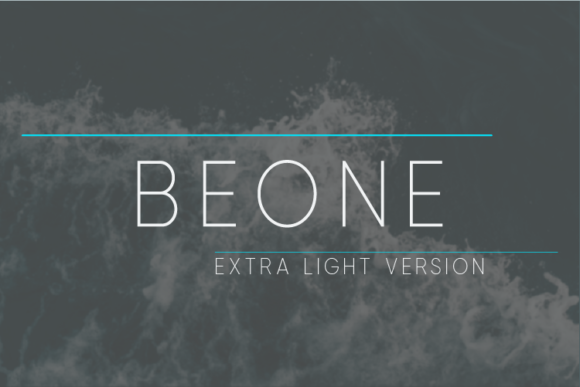
I still remember the frustration of working on a project, hours spent on perfecting every detail, only to be held back by one thing: the font. I was designing a brand identity for a new eco-friendly cosmetics company, and I just couldn’t find the right fit. The client wanted something modern, clean, and elegant, but also earthy and natural. I tried font after font, but nothing seemed to capture that perfect balance. That was until I stumbled upon Beone Extra Light.
Introducing Beone Extra Light
Say hello to Beone Extra Light – a modern sans serif font inspired by trendy minimal branding, natural cosmetic packaging design, and all kinds of creamy neutral shades. This font is a game-changer for designers, crafters, and creative hobbyists looking to give their projects a professional and sleek look.
Here’s what I love about Beone Extra Light:
- ✨ Clean and modern design: The font has a fresh and contemporary feel that’s perfect for modern branding and design projects.
- ✅ Highly legible: Even at small sizes, Beone Extra Light remains clear and easy to read.
- 💡 Versatile: This font works beautifully for both digital and print projects, from social media graphics to business cards and brochures.
And, like any font, it’s not without its quirks:
- 🤔 Limited contrast: While the font is designed to be elegant and understated, it may not be the best choice for projects requiring a lot of visual hierarchy.
- ⚠️ Not ideal for body text: Beone Extra Light is best used for headlines, titles, and short paragraphs; it may be too light for longer blocks of text.
Beone Extra Light comes with a range of OpenType features and glyphs that can enhance your designs. Look for:
- Stylistic alternates: Swappable characters that offer alternative designs.
- Ligatures: Combined characters that create a more fluid look.
- Glyphs: Additional characters and symbols that can add variety to your text.
The Story Behind Beone Extra Light
Beone Extra Light was designed with the modern brand in mind. Inspired by the clean lines and minimal aesthetic of trendy cosmetic packaging, this font is perfect for designers looking to create a natural and elegant look. Whether you’re working on a branding project, packaging design, or marketing materials, Beone Extra Light is a versatile choice that will elevate your designs.
| Font Name | Beone Extra Light Font |
| Author | Nan Design |
| What is Beone Extra Light? | Beone Extra Light is a modern sans serif font inspired by trendy minimal branding and natural cosmetic packaging design. |
| Is Beone Extra Light suitable for body text? | No, Beone Extra Light is best used for headlines, titles, and short paragraphs; it may be too light for longer blocks of text. |
| Does Beone Extra Light come with OpenType features? | Yes, Beone Extra Light comes with a range of OpenType features, including stylistic alternates, ligatures, and glyphs. |